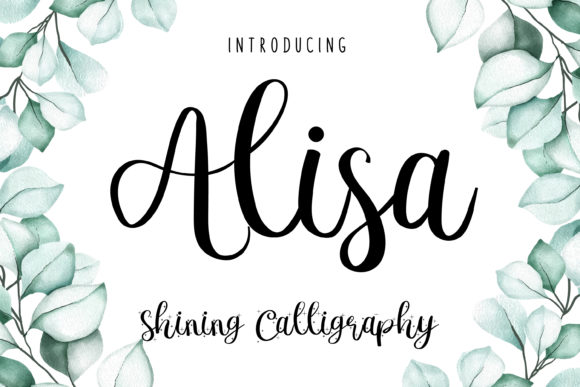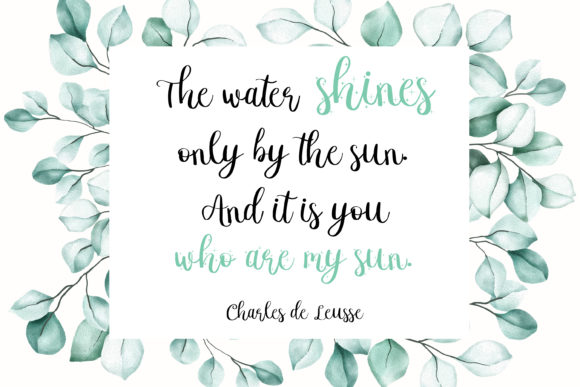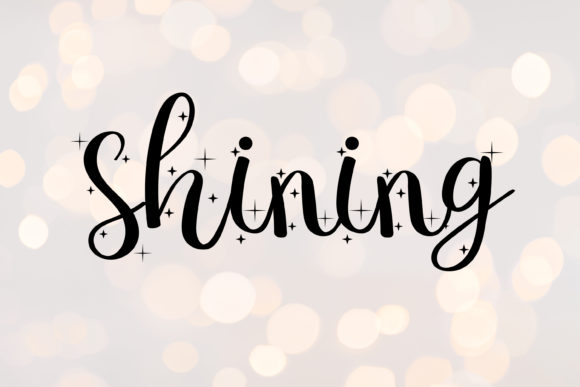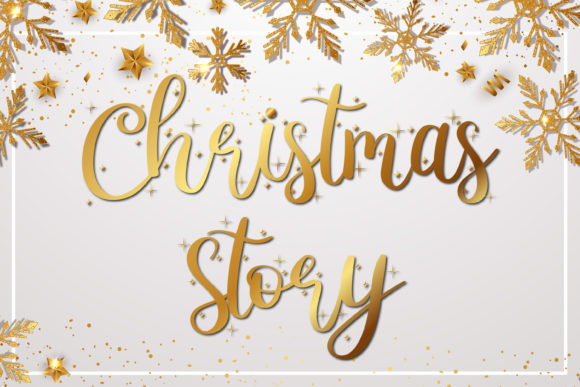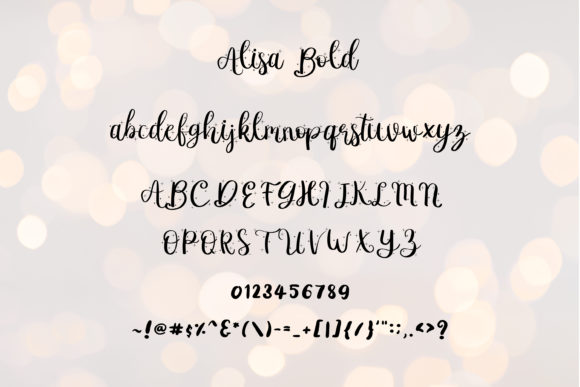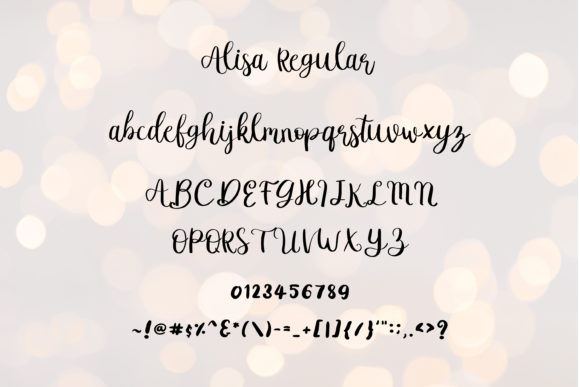
Alisa Font
About Alisa Font
“Alisa” is a font that stands out with its distinct, delicate, and timeless qualities. Its captivating charm makes it a perfect choice for a wide variety of design projects, adding a touch of elegance and sophistication to each creation. Whether you’re working on wedding invitations, thank you cards, quotes, greeting cards, logos, business cards, or any other design that benefits from a handwritten touch, “Alisa” will grace your work with its stunning visual appeal.
The beauty of “Alisa” lies in its ability to effortlessly capture attention and convey a sense of refined handwriting. Its delicate strokes and elegant curves create an atmosphere of beauty and grace, making it an excellent fit for a wide range of designs. Whether you’re crafting a romantic wedding invitation, conveying heartfelt messages, or adding a touch of personalization to your branding, this font delivers a layer of beauty that resonates deeply.
“Alisa” boasts a timeless quality that transcends trends and effortlessly adapts to various design contexts. Its versatility makes it a reliable choice for all your creative projects that require a touch of sophistication and a personal touch.
Witness how “Alisa” enhances your designs with its delicate and distinct touch. Whether you’re creating logos with a touch of class, designing expressive stationery, or producing captivating social media graphics, this font will infuse your work with a sense of elegance and allure that captures attention.
Embrace the elegance of “Alisa” and allow it to become a cornerstone in your design toolkit. Let its delicate and timeless style inspire your creations, transforming them into stunning works that resonate with beauty and sophistication. Whether you’re an experienced designer or a passionate enthusiast, “Alisa” empowers you to craft visuals that exude elegance and make a lasting impression. Let “Alisa” be the key to unlocking the beauty of distinct and timeless handwriting in your designs, and watch as it elevates your projects to new heights of excellence and sophistication!